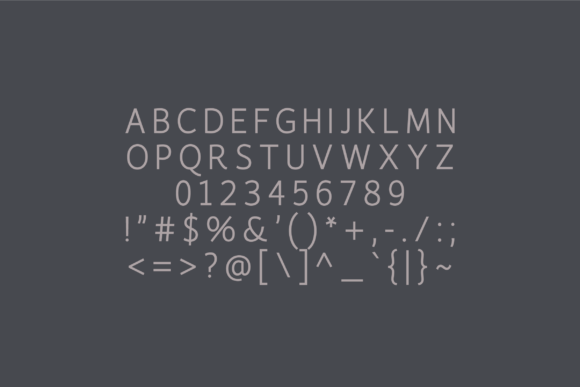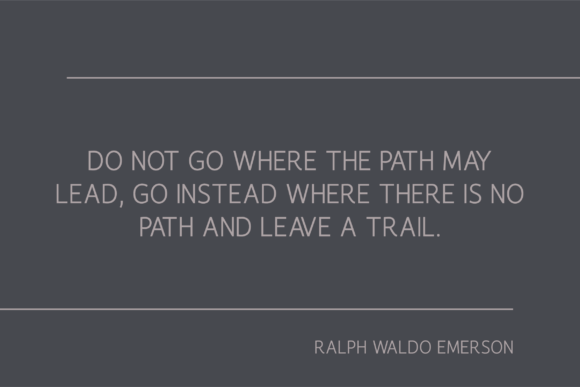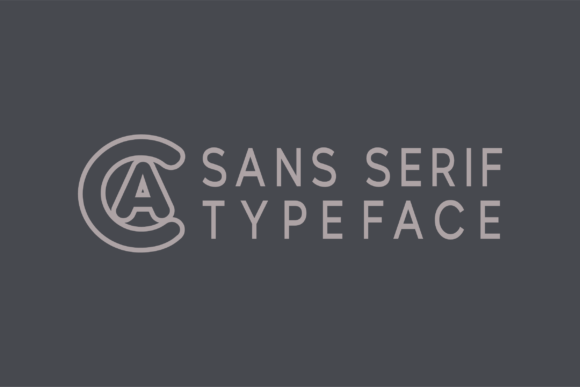
Introduction to Kleio Font
Imagine you’re about to launch a high-profile campaign for your creative project, and you need the perfect font to give it that extra oomph. You browse through your design resources, searching for something that exudes sophistication and elegance. And then, you stumble upon it – the Kleio Font. With its sleek, modern design, this font is an absolute game-changer for designers.
The Kleio Font is a treasure trove of possibilities, offering a vast array of uppercase characters, numbers, punctuation, and symbols. Whether you’re crafting a chic logo, designing a whimsical wedding invitation, or creating a poignant quote, Kleio Font is an indispensable tool that will elevate your work to new heights. Plus, with its transparent background, you can easily download it for free and incorporate it into your design without any hassle.
What sets the Kleio Font apart is its versatility and high quality. This font is not just a design resource; it’s a key to unlocking your creative potential. So, why settle for anything less when you can have the best? Get ready to unleash your creativity with the Kleio Font, and take your designs to the next level!
Key Features of Kleio Font
- High-quality, professional font suitable for various creative projects
- Designed with a transparent background, allowing for seamless integration into designs
- Perfect design resource for graphic designers, digital artists, and writers
- Unique, elegant design with a touch of sophistication, ideal for formal and creative projects
Honest Review: Kleio Font
As a designer, I’m always on the lookout for high-quality design resources to enhance my creative projects. The Kleio Font caught my attention, and I decided to give it a try. Here’s my honest review.
- Unique and elegant design style
- Excellent for titles and headings
- High quality and clear font rendering
One of the standout features of the Kleio Font is its ability to work well with transparent backgrounds. This makes it perfect for creating visually appealing designs with a clean and minimalist aesthetic.
- Not ideal for body text, due to its elegance and style
- Not suitable for large blocks of text, as it can be overwhelming
Overall, I’m impressed with the Kleio Font’s design and functionality. While it may not be suitable for all types of design projects, it’s an excellent choice for titles, headings, and other creative elements. I’d definitely recommend it as a design resource for those looking to add a touch of elegance to their work.
Kleio Font
How to Use Kleio Font in PowerPoint/Word
To use the Kleio Font in PowerPoint or Word, simply select the font from the font library and apply it to your text elements. You can customize the font size, color, and style to fit your design needs. The Kleio Font is a free download, making it a great resource for designers on a budget.
Tips for Getting the Most Out of Kleio Font
To get the most out of the Kleio Font, experiment with different font styles and combinations. You can also use the font in conjunction with other design elements to create visually appealing graphics. The transparent background of the Kleio Font makes it perfect for creating graphics with a seamless look.
Common Use Cases for Kleio Font
The Kleio Font is perfect for a variety of design projects, including logos, branding materials, and creative graphics. Its high-quality design and transparent background make it a great resource for designers looking to create visually appealing designs.